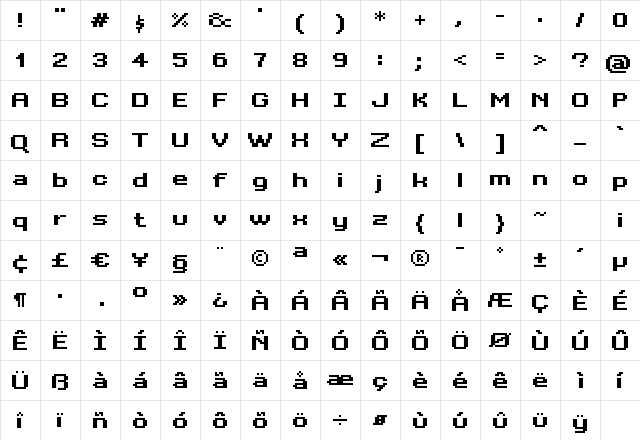
Bit KitWide Bold Regular
Design Context for Bit KitWide Bold Typeface
Bit KitWide Bold offers clean, dependable letterforms without strong stylistic allegiance, making it a practical choice for designers who need flexibility. The heavy weight commands attention and anchors typographic hierarchies.